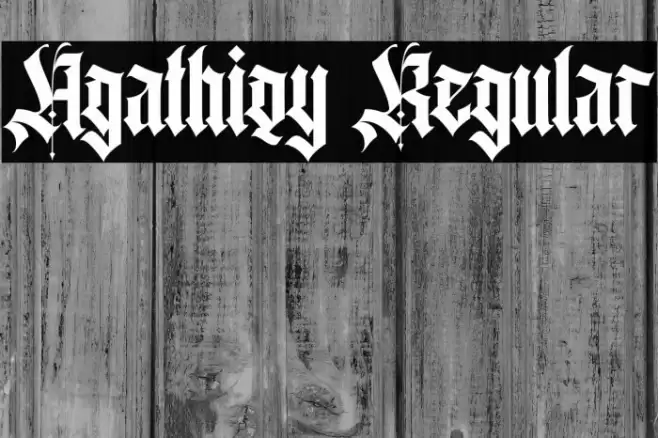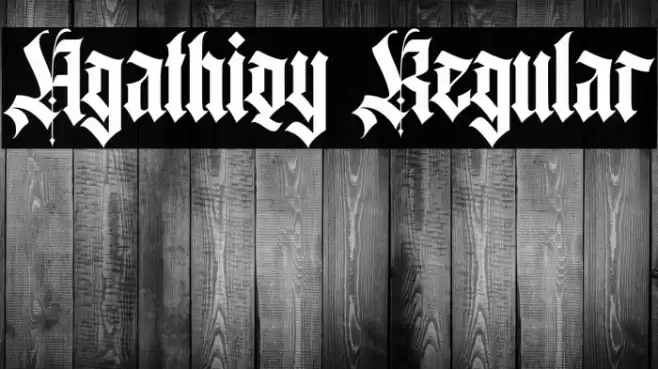
Agathiqy Regular Font
Agathiqy Regular Description
This font exudes a bold and dramatic presence, characterized by its intricate and angular letterforms reminiscent of traditional blackletter styles. The sharp edges and pointed serifs give it a gothic and medieval feel, making it stand out with its ornate and decorative elements. The uppercase and lowercase letters maintain a consistent style, with a strong emphasis on vertical strokes and elaborate detailing. The numerals and special characters follow the same aesthetic, ensuring a cohesive look across all glyphs.
A bold, gothic blackletter font with intricate and angular designs from Regular fonts.
- Proposed Projects: Ideal for projects requiring a medieval or gothic theme, such as event posters, book covers, or branding for historical or fantasy-themed products.
- Overall Style: Gothic, Decorative